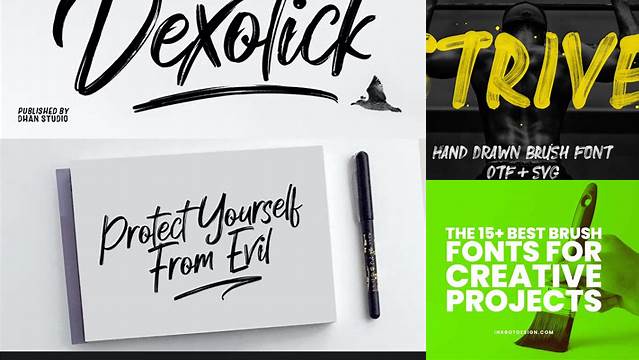
Dexotick: Free Brush Font For Authentic Designs
Are you looking for that perfect free brush font to add a touch of authenticity and handmade charm to your designs? Look no further, guys! Let's dive into the world of Dexotick, a font that promises to bring a unique, hand-drawn feel to all your creative endeavors. In this article, we'll explore everything about Dexotick, from its standout features and how to best use it, to why it stands out in the crowded world of free fonts. So, grab a coffee, get comfy, and let's get started!
What Makes Dexotick the Go-To Free Brush Font?
When it comes to selecting a font, especially for projects that need a personal touch, the choice can be overwhelming. But Dexotick manages to cut through the noise with its distinctive characteristics. At first glance, you'll notice the font's raw, unpolished edges, which give it an undeniably organic feel. This isn't your typical sterile, perfectly-aligned typeface; it's got character, it's got soul, and it's got the kind of artistic flair that can elevate any project. Think about using Dexotick for branding materials, where you want to convey a sense of authenticity and craftsmanship. Imagine it emblazoned across a logo for a local coffee shop, a handmade goods store, or even a musician's album art. The possibilities are truly endless. The beauty of a brush font like Dexotick lies in its ability to mimic the natural strokes of a paintbrush. This creates a sense of movement and energy, making your text feel alive and dynamic. It’s not just about conveying words; it's about conveying a feeling, an emotion, a vibe. And Dexotick does this masterfully. But the magic of Dexotick isn't just skin-deep. It's also about its versatility. While it shines in projects that demand a handmade aesthetic, it's also surprisingly adaptable to a variety of other applications. Need a bold heading for your website? Dexotick can do it. Want to add some flair to your social media graphics? Dexotick is your guy. How about creating eye-catching posters or flyers? You guessed it – Dexotick has you covered. It's this adaptability that makes it such a valuable asset in any designer's toolkit.
Another aspect that sets Dexotick apart is its accessibility. Being a free brush font, it eliminates the barrier to entry that often comes with premium typefaces. You don't have to break the bank to get your hands on a font that looks like it came straight out of a designer's sketchbook. This makes it an ideal choice for students, freelancers, and anyone who wants to experiment with different styles without committing to a hefty price tag. But don't let the “free” label fool you – Dexotick doesn't compromise on quality. It's a well-crafted font that has been designed with care and attention to detail. This means you can use it with confidence, knowing that your designs will look professional and polished. So, if you're searching for a font that combines authenticity, versatility, and affordability, Dexotick is definitely worth checking out. It's a game-changer for anyone who wants to add a touch of handmade magic to their projects.
Unleashing Your Creativity: Best Uses for Dexotick
Okay, so we've established that Dexotick is pretty awesome. But how exactly can you use it to unleash your creativity? Let's explore some specific scenarios where this free brush font can really shine. First off, think about branding. In today's world, where consumers are craving authenticity, a handmade aesthetic can be a major differentiator. Dexotick is perfect for crafting logos and visual identities that feel personal and approachable. Imagine a bakery using Dexotick for its logo – the brush-like strokes would instantly convey a sense of freshness and homemade goodness. Or picture a clothing brand that specializes in organic materials using Dexotick to create a logo that feels natural and earthy. The possibilities are endless. But branding is just the beginning. Dexotick is also a fantastic choice for marketing materials. Whether you're designing posters, flyers, or social media graphics, this font can help you grab attention and stand out from the crowd. Its bold, energetic strokes are perfect for headlines and call-to-actions, ensuring that your message gets noticed. Think about using Dexotick for a concert poster, where its raw energy would perfectly complement the vibe of the music. Or imagine using it for a sale advertisement, where its eye-catching style would help draw in customers.
Beyond branding and marketing, Dexotick is also a great option for editorial design. Its unique character can add a touch of personality to magazines, books, and other printed materials. Consider using it for chapter titles, pull quotes, or even body text (although, for large blocks of text, it's best to use it sparingly to maintain readability). Picture a travel magazine using Dexotick for its section headers, giving each article a sense of adventure and exploration. Or imagine a poetry book using it for the author's name and title, adding a touch of artistic flair. Dexotick also shines in the realm of digital design. Its bold strokes and distinctive style make it a great choice for website headers, app interfaces, and other digital applications. However, it's important to consider readability when using brush fonts in digital spaces. Make sure to use it in a large enough size and with sufficient contrast to ensure that your text is easy to read on screens. Think about using Dexotick for a blog header, where its eye-catching style would help draw readers in. Or imagine using it for the call-to-action button on a website, making it stand out and encouraging users to click. The key to using Dexotick effectively is to experiment and play around with it. Try it in different sizes, weights, and contexts to see what works best for your project. Don't be afraid to mix it with other fonts to create interesting combinations. And most importantly, have fun! Dexotick is a font that's meant to be enjoyed, so let your creativity run wild.
Dexotick vs. the Competition: Why Choose This Free Font?
In the vast ocean of free fonts, you might be wondering: what makes Dexotick so special? What sets it apart from the competition? Let's break down why Dexotick deserves a spot in your font library. First and foremost, it's the authenticity factor. Many free brush fonts try to mimic the hand-drawn look, but few achieve it as convincingly as Dexotick. Its raw edges, irregular strokes, and overall organic feel give it a level of genuineness that's hard to replicate. This is crucial if you're aiming for a design that feels truly handmade and unique. Think about comparing Dexotick to a font that looks too polished and perfect – the difference is night and day. Dexotick has character; it has a story to tell. Another key advantage of Dexotick is its versatility. While it excels in projects that call for a handmade aesthetic, it's also surprisingly adaptable to other styles. This means you can use it in a wide range of applications, from branding and marketing to editorial and digital design. Some free fonts are very niche, meaning they only work in a limited number of contexts. But Dexotick is a workhorse – it can handle a variety of tasks with ease.
Consider the common scenario where you need a font that's both eye-catching and legible. Many brush fonts sacrifice readability for style, but Dexotick strikes a good balance. Its bold strokes ensure that it stands out, while its relatively clean letterforms make it easy to read, even in smaller sizes. This is a major plus, especially for projects where clear communication is essential. Furthermore, Dexotick's licensing is a major draw. As a free font, it typically comes with a license that allows for both personal and commercial use. This means you can use it in your projects without having to worry about copyright issues or licensing fees. This is a huge advantage over some premium fonts, which can come with complex and restrictive licenses. Of course, it's always a good idea to double-check the specific license terms to make sure you're using the font correctly. But in general, Dexotick offers a lot of flexibility in terms of usage. Finally, it's worth mentioning the community support that often surrounds free fonts like Dexotick. Many designers and font enthusiasts share their experiences and tips for using the font effectively. This can be a valuable resource, especially if you're new to using brush fonts. You can find inspiration, troubleshooting advice, and even examples of how others have used Dexotick in their projects. So, when you choose Dexotick, you're not just getting a font; you're joining a community.
Pro Tips for Using Dexotick Like a Design Pro
So, you've got Dexotick installed and you're ready to rock. But how do you use it like a design pro? Here are some pro tips to help you get the most out of this awesome free brush font. First up, consider your context. Dexotick is a bold and expressive font, so it's not always the right choice for every situation. It shines in projects that need a handmade feel or a touch of personality, but it might be too informal for more serious or corporate settings. Think about the overall tone and message of your design and make sure that Dexotick aligns with it. For example, it's a great fit for a restaurant menu that features handcrafted dishes, but it might not be the best choice for a legal document. Another key tip is to use it sparingly. Dexotick is a statement font, so a little goes a long way. Overusing it can make your design feel cluttered and overwhelming. Instead, try using it for headlines, subheadings, or other key elements, and pair it with a more neutral font for body text. This will help to create a balanced and visually appealing design. Think about using Dexotick for the main heading on a website and then using a clean sans-serif font for the body text. This will give your design a modern and professional look.
With its bold strokes and organic feel, Dexotick is sure to make a lasting impression. So, go ahead, unleash your creativity, and see what you can create with this awesome free brush font. We'd love to see what you come up with! Share your designs with us in the comments below or on social media. And if you have any questions or tips for using Dexotick, don't hesitate to share them as well. The design community is all about sharing and learning from each other, so let's keep the conversation going. In conclusion, Dexotick is more than just a font; it's a tool for self-expression. It's a way to add a personal touch to your designs and make them truly stand out. So, if you're looking for a free brush font that's both stylish and versatile, Dexotick is definitely worth checking out. It might just become your new favorite! Happy designing, guys! We hope this article has been helpful and informative. Thanks for reading!